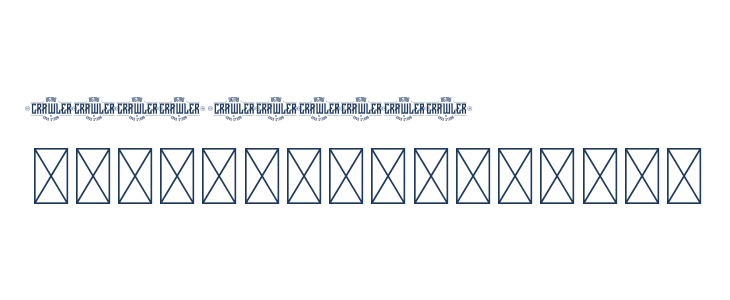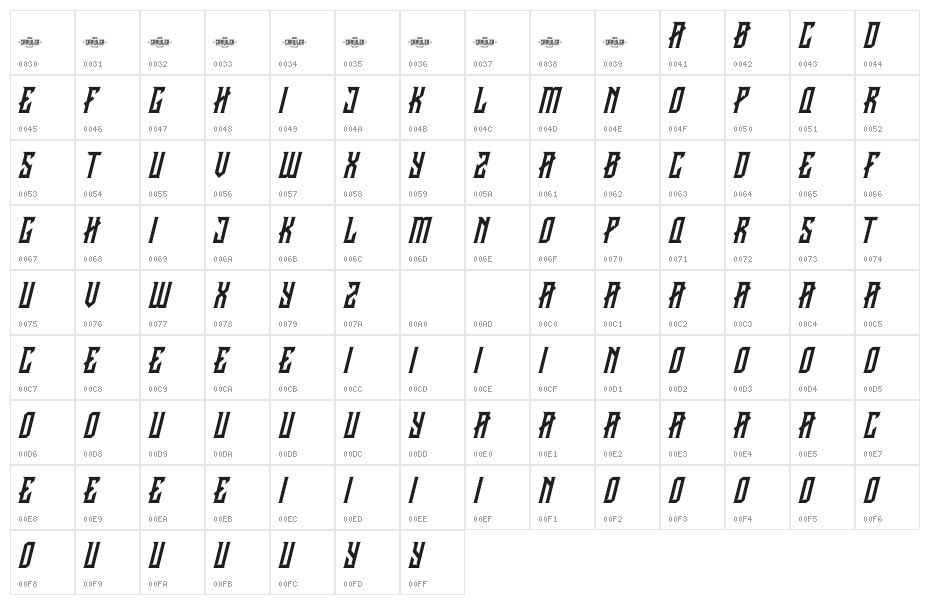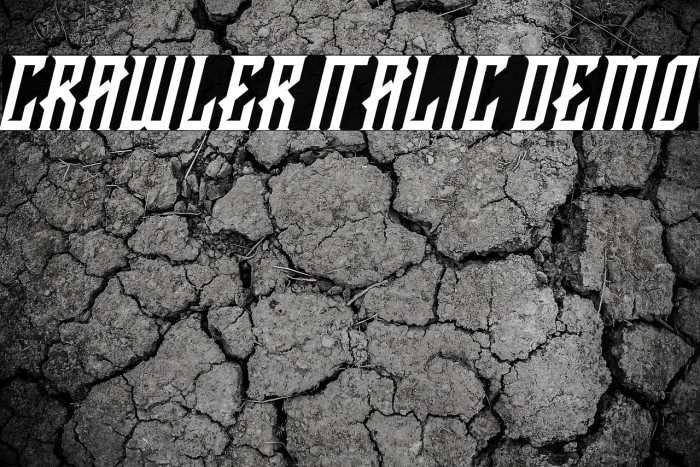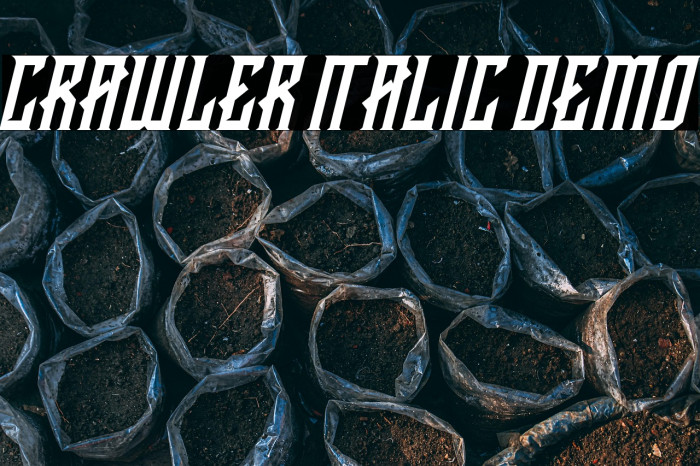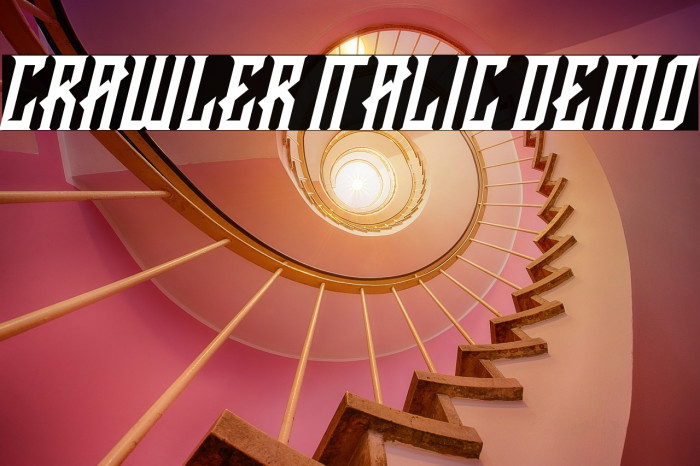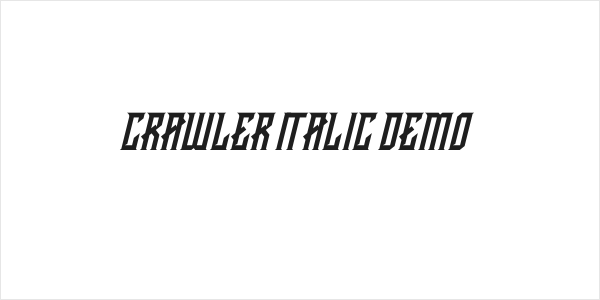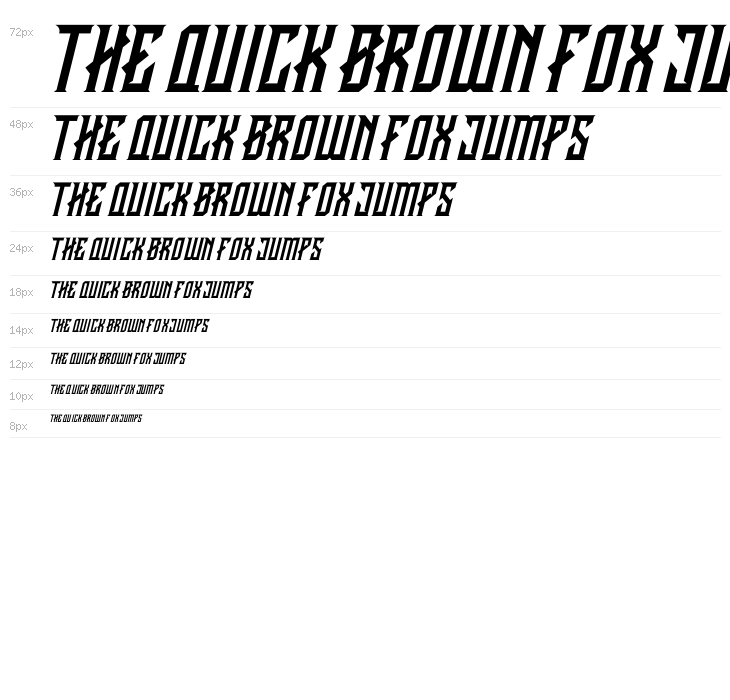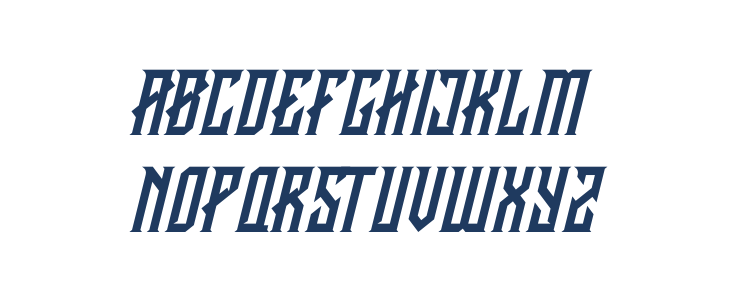
CRAWLER Italic Demo Font
CRAWLER Italic Demo Description
This font features a bold and dynamic design with sharp, angular lines and a distinct italic slant. The characters are tightly spaced, creating a sense of urgency and movement. The uppercase letters have a strong presence, with unique geometric shapes that give the font a futuristic and edgy appearance. The lowercase letters maintain the same angular style, ensuring consistency throughout. The numbers and special characters are designed to match the bold and striking aesthetic, making this font ideal for attention-grabbing designs.
| Overall Style | Futuristic, Edgy |
| Proposed Projects | Ideal for use in sci-fi themed projects, video game titles, posters, and branding that requires a bold and modern look. |